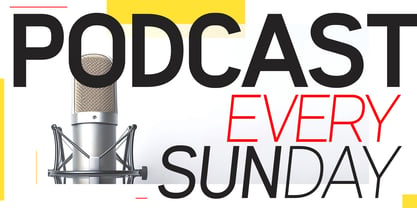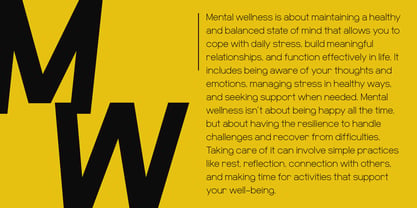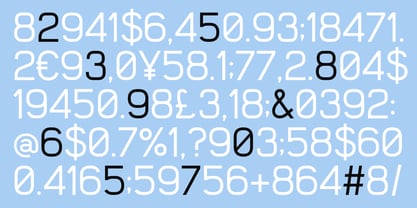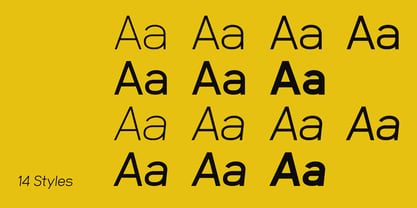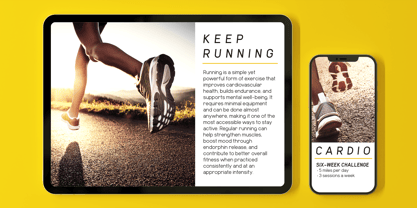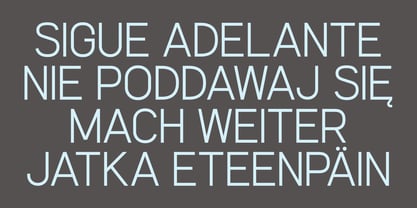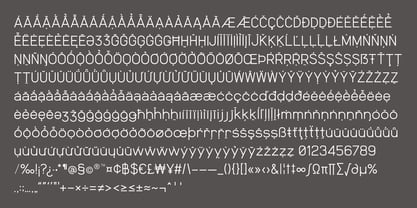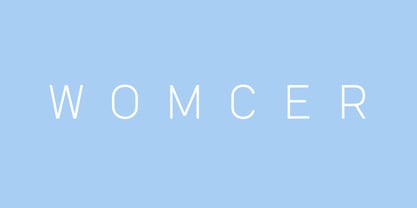
Womcer
La familia tipográfica Womcer fue diseñada por Taka Ikari y publicada por Outerend. Womcer contiene 14 estilos y opciones de paquete familiar. Más información sobre esta familia
Womcer is a clean, contemporary sans serif defined by sleek proportions and understated elegance. Designed with clarity and versatility in mind, it delivers excellent readability across a wide range of applications, from editorial and branding to digital interfaces and display use. Its balanced structure and modern detailing give it a refined yet approachable voice. The family spans 7 weights with corresponding italics, totaling 14 styles, providing a flexible system for both subtle hierarchy and bold visual expression.